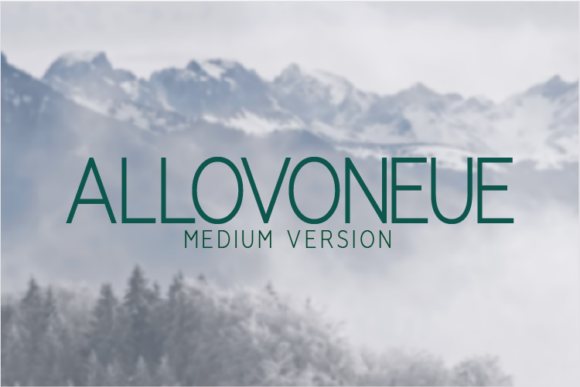
Embark on a Typographical Journey with Allovoneue Medium Font: Your Gateway to Modern Elegance and Design Versatility
Discover the Allovoneue Medium font, a contemporary sans-serif font that redefines typographic boundaries. Its clean lines, precise angles, and geometric letterforms exude a sense of sophistication and modernity, capturing the essence of 20th Century neo-grotesk fonts.
Allovoneue Medium is more than just a font; it's an artistic expression that transforms your designs into visually compelling masterpieces. Its razor-sharp edges and minimal stroke contrast create a distinct visual appeal that commands attention and leaves a lasting impression.
With Allovoneue Medium, you unlock a world of creative possibilities. Its versatility knows no bounds, seamlessly adapting to a myriad of design projects. Whether you're crafting captivating magazines, eye-catching posters, or establishing a strong brand identity, Allovoneue Medium rises to the occasion.
Elevate Your Designs to New Heights:
1. **Visual Precision:** Experience the allure of geometric perfection with Allovoneue Medium's precise letterforms. Its clean lines and sharp angles create a sense of order and harmony, making your designs visually captivating.
2. **Contemporary Sophistication:** Infuse your designs with a modern touch using Allovoneue Medium. Its contemporary aesthetic effortlessly blends with current design trends, ensuring your projects stay ahead of the curve.
3. **Unleash Your Creativity:** Unleash your creativity and explore new design horizons with Allovoneue Medium. Its versatility empowers you to experiment with different styles, allowing your imagination to flourish.
4. **Make a Statement:** Make a bold statement with Allovoneue Medium's striking presence. Its distinct visual characteristics demand attention, ensuring your designs stand out from the crowd.
5. **Endless Applications:** The possibilities are endless with Allovoneue Medium. Its adaptability extends from print media like magazines and posters to digital realms such as web design and social media graphics.
6. **Professional Edge:** Exude professionalism and credibility with Allovoneue Medium's polished appearance. Its refined aesthetics add a touch of sophistication to your designs, leaving a lasting impression on your audience.
7. **Easy on the Eyes:** Experience effortless readability with Allovoneue Medium's clear letterforms. Its carefully crafted design ensures optimal legibility, making your content easy to comprehend and visually appealing.